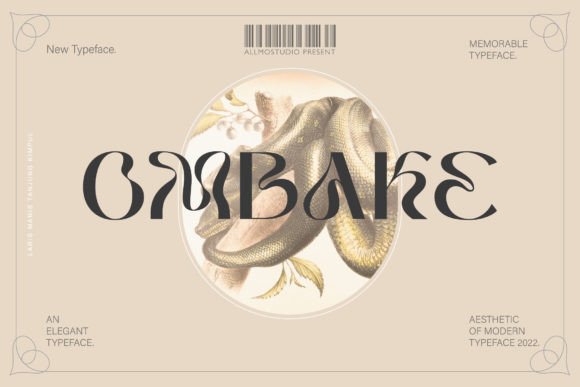
Step into the realm of visual enchantment with Ombake Font, a captivating display font that weaves a spell of elegance and sophistication. Its meticulously crafted letterforms dance across the canvas, each stroke imbued with a distinct personality that etches itself into the viewer's mind. Experience the allure of its graceful curves and stylish flair, poised to transform your creative projects into masterpieces.
Ombake Font's allure lies in its versatility, seamlessly adapting to a symphony of design endeavors. Whether you seek to weave magic into your magazine layouts, bestow packaging with a touch of grandeur, or elevate book covers with an air of timeless elegance, Ombake Font stands ready to enchant and captivate. Its inherent charm extends to title designs, fashion branding, clothing lines, lettering artistry, and an array of other creative expressions, leaving an indelible mark on your visual creations.
Immerse yourself in the boundless possibilities unlocked by Ombake Font's larger-than-life presence. Its expansive character set commands attention, making it the perfect choice for headlines that leap off the page, captivating titles that demand a second glance, and impactful quotes that resonate with your audience. The possibilities are limitless, inviting you to weave a tapestry of visual intrigue that captivates and enchants.
Ombake Font is more than just a collection of pixels; it's an invitation to unleash your creativity and embark on a journey of visual storytelling. Its alluring curves and elegant lines dance in harmony, invoking emotions and leaving a lasting impression on your audience. With Ombake Font as your creative companion, you hold the power to transform the ordinary into the extraordinary, leaving a legacy of visual excellence that speaks volumes.